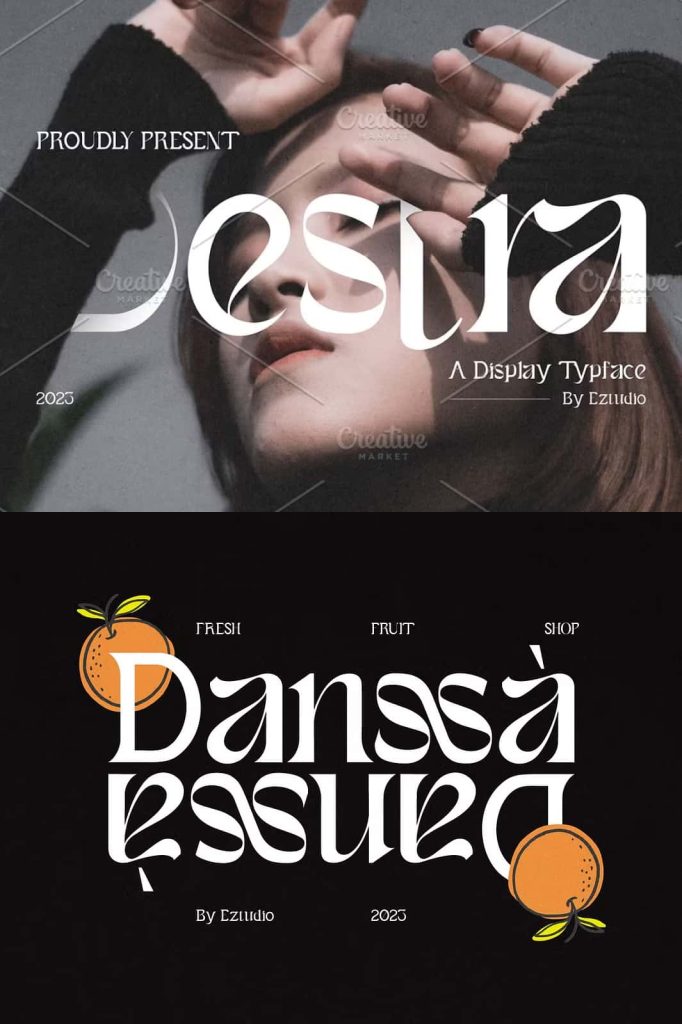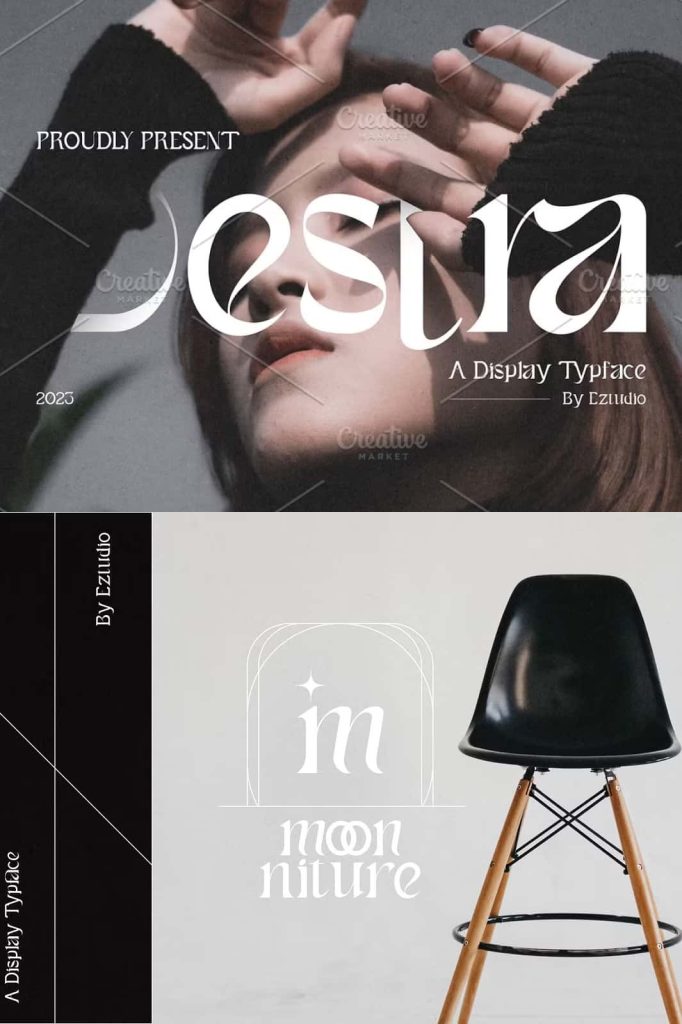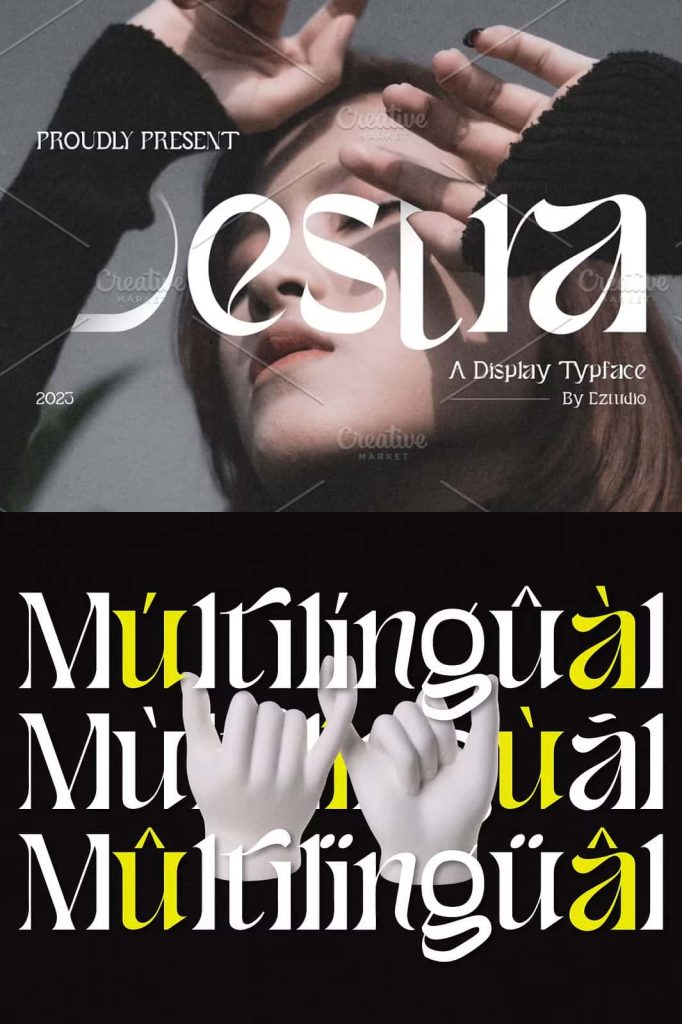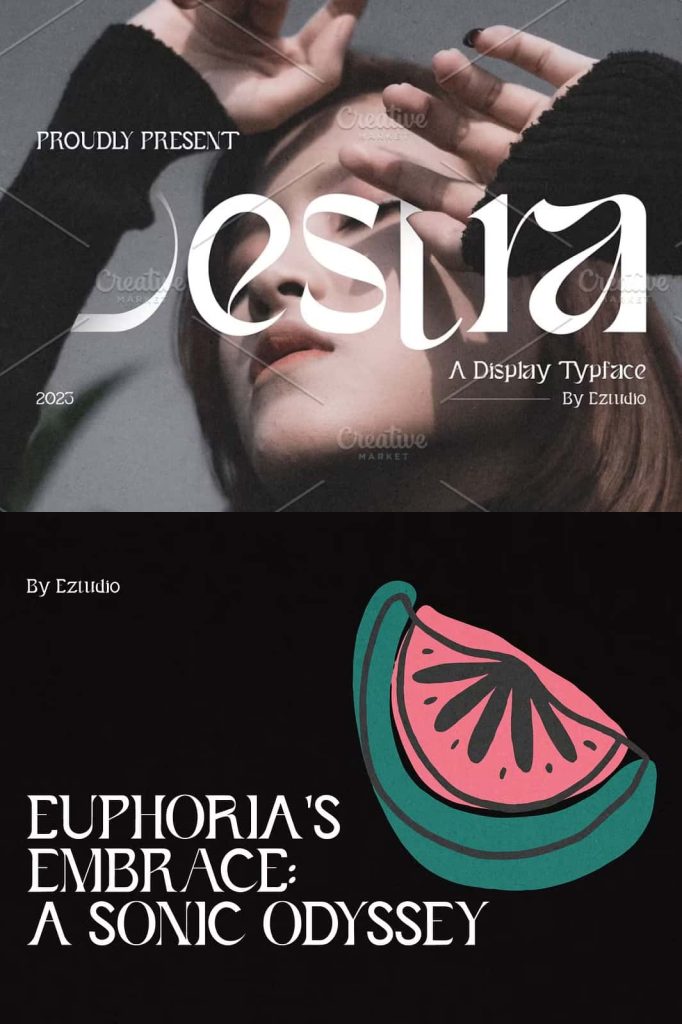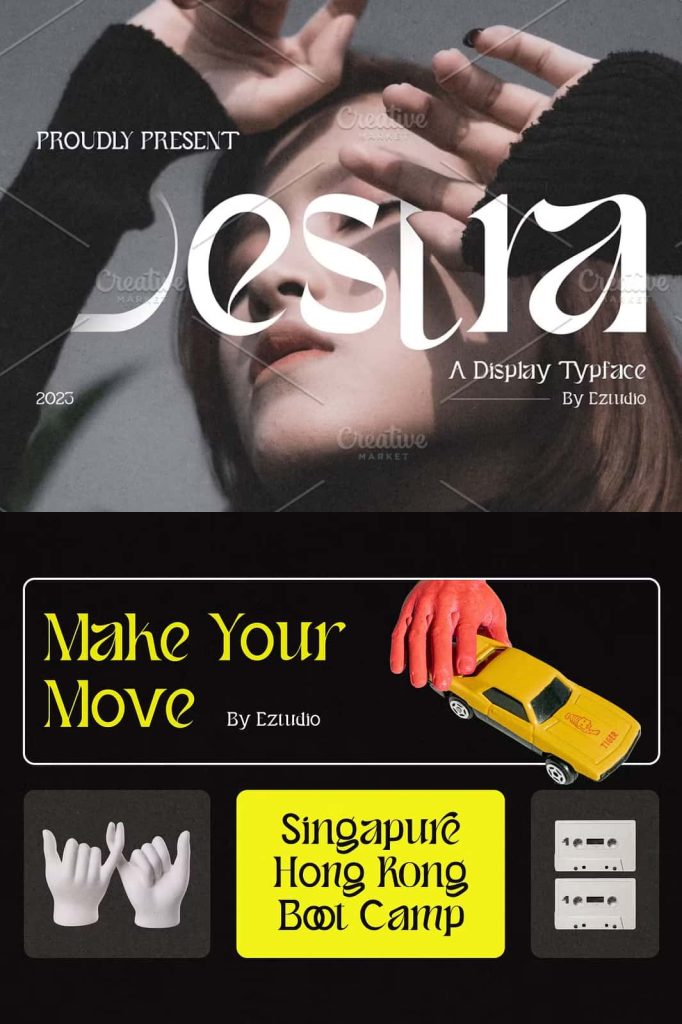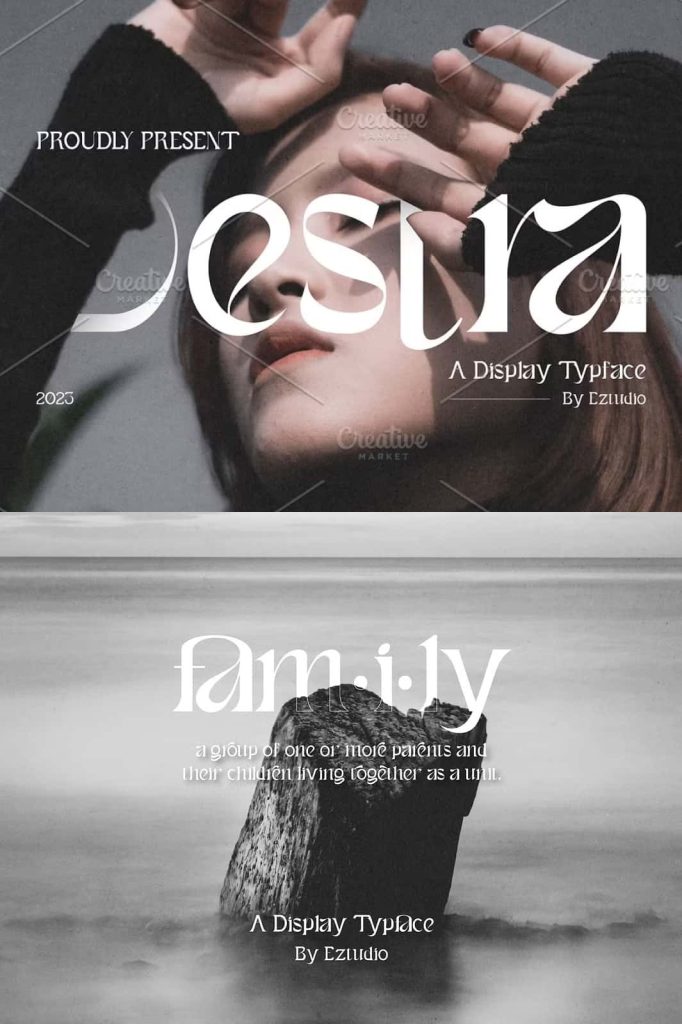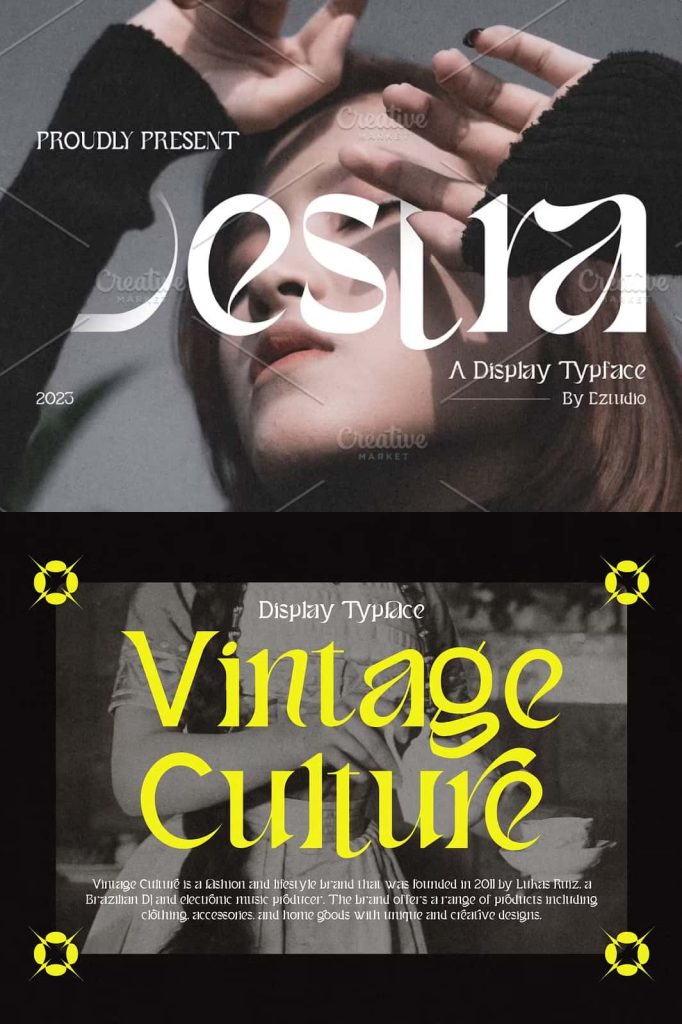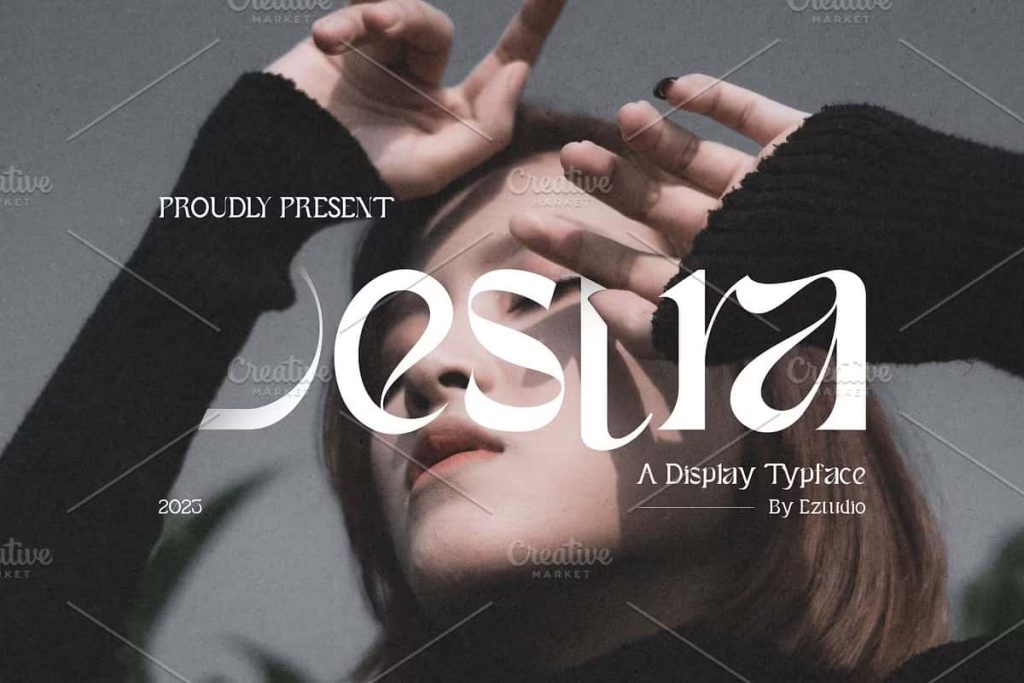
Destra – Display TypefaceleastedJanuary 3, 2025Fonts Desra is a decorative font that offers a classy and modern look suitable for a wide range of design projects. Download